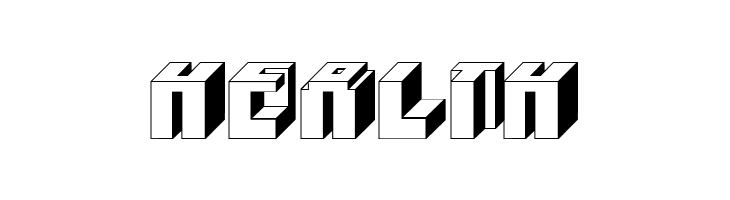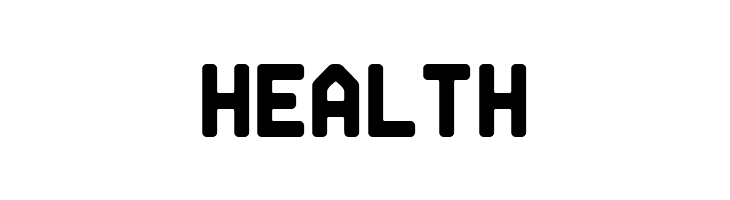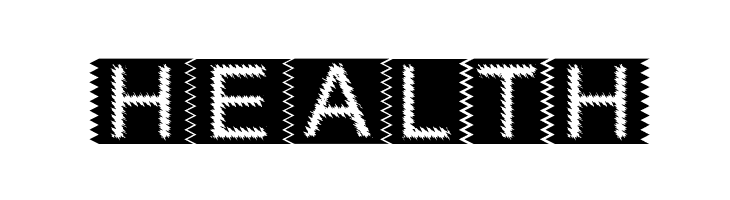
A playful, snowflake-adorned font with bold, whimsical letterforms.
A futuristic, angular, and outlined font with an italic slant.
A bold, outlined font with a playful and modern aesthetic.
A bold slab serif font with strong, well-defined characters.
A bold, outlined, and leaning font with a modern, dynamic style.
A bold, outlined font with a three-dimensional effect and consistent character height.
A modern, geometric sans-serif font with uniform strokes and strong visual impact.
A bold, outlined font with a modern and geometric style.
A bold, decorative font with a dotted outline pattern and a cursive-like slant.
A futuristic, geometric font with bold, rounded shapes and a digital aesthetic.
Bold, rounded characters within black squares for a playful, modern look.
A classic serif font with elegant curves and refined details.
A whimsical, hand-drawn font with elongated, irregular strokes and a playful aesthetic.
A narrow, elegant serif font with moderate contrast and refined style.
A bold, dynamic font with a three-dimensional, outlined style.
A bold, outlined font with sharp, angular serifs and a dramatic presence.
A bold, outlined font with a modern and playful style.
A bold, outlined font with a playful and modern aesthetic.